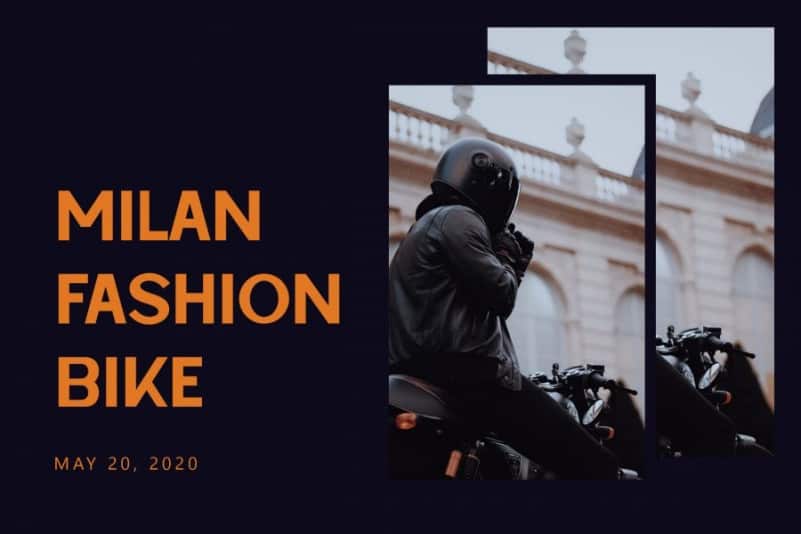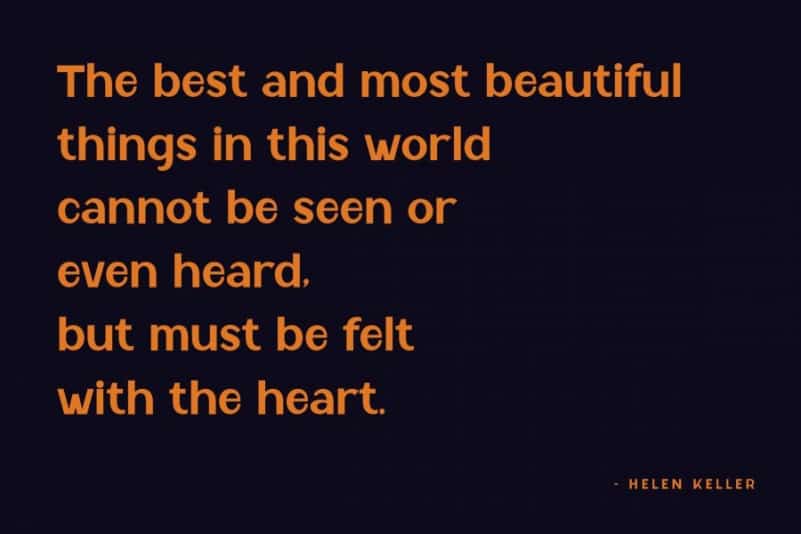
Lynsic Cisnyl Sans Serif Font
Lynsic Cisnyl Sans Serif Font is a roundish, minimalistic, sans serif font design. It’s perfect to use for your logo design but fits in every situation. This font is designed and shared by Rometheme Studio. It has a elegant, classy look and beauty. It’s a great font for fashion, apparel projects, signature, album cover, logo, branding, magazine, social media, & advertisements, but also works great for other projects.